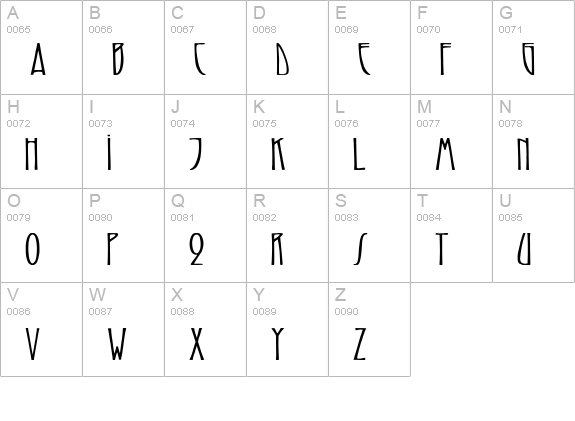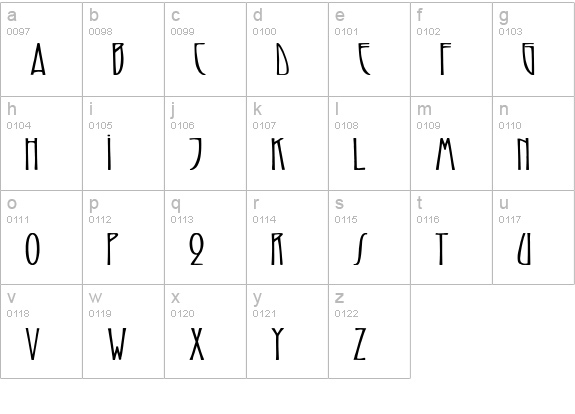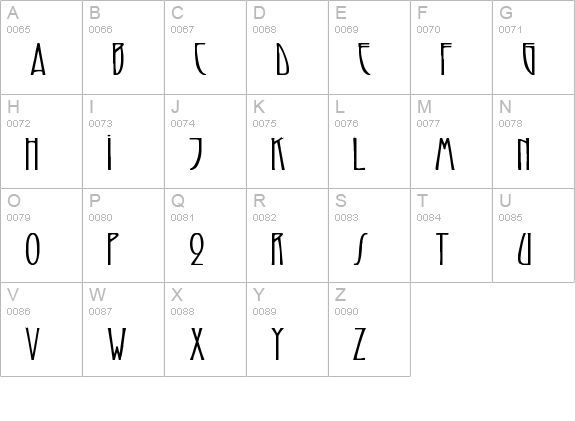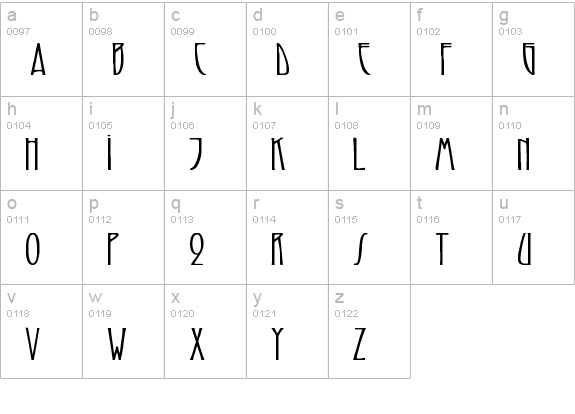
ReynoldCaps Cn Bold is a strong, high-contrast variant in the ReynoldCaps typeface family \xE2\x80\x94 well suited to headlines, attention-grabbing titles, and strong calls-to-action.
ReynoldCaps Cn Bold font is a stunning and versatile typeface that exudes a sense of elegance and sophistication. Its bold and sharp design captures attention instantly, making it the perfect choice for headlines, logos, and branding projects. This font is characterized by its unique condensed style, which allows for maximum impact in limited space. The tall and slender letterforms create a sleek and modern look, while still maintaining readability and legibility. ReynoldCaps Cn Bold font offers a wide range of uppercase characters, each meticulously crafted to ensure consistency and balance. The strong and bold strokes, combined with the refined curves, add a touch of luxury and refinement to any design. One of the most remarkable aspects of this font is that it is available for free download at FontsMarket.com. This means that you can easily access this high-quality typeface without any cost, making it an excellent choice for designers and creatives on a budget. Whether you're working on a print project, a website, or any other design endeavor, ReynoldCaps Cn Bold font is sure to elevate your work to the next level. Its versatility and timeless appeal make it suitable for a wide range of applications, from fashion and beauty to technology and finance. In conclusion, ReynoldCaps Cn Bold font is a stunning typeface that combines elegance, legibility, and versatility. With its bold and sharp design, it is guaranteed to make a lasting impression. And the best part? It's freely available to download at FontsMarket.com. So why wait? Get your hands on this exceptional font and start creating eye-catching designs today!